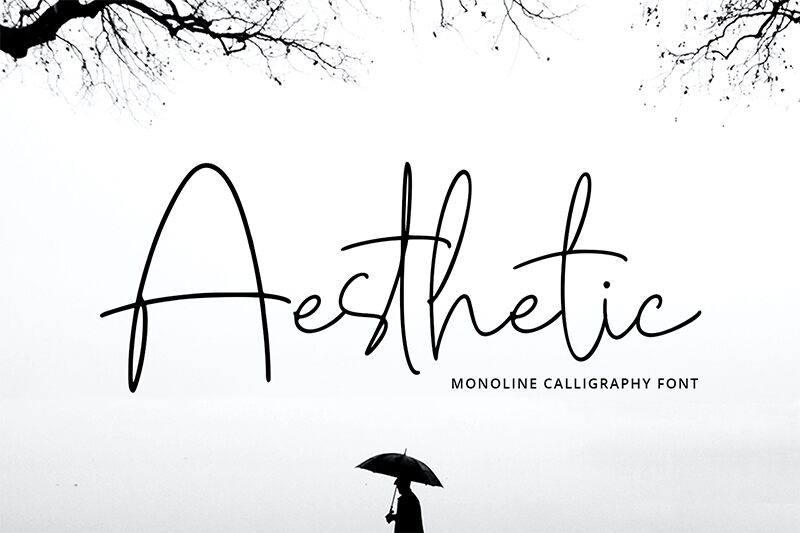
Aesthetic
Aesthetic, a thin handwritten font designed by Alpaprana Studio, is perfect for creating unique and creative projects. From logos to invitations, it's the perfect choice for adding a personal touch.